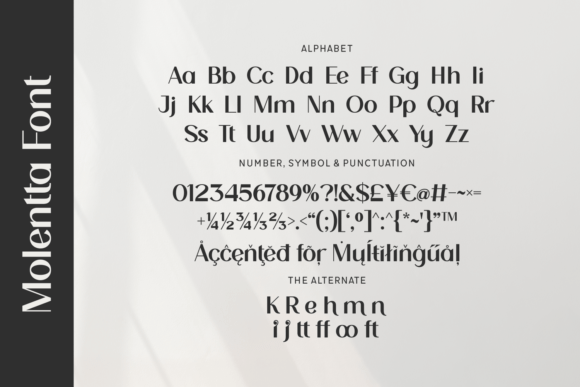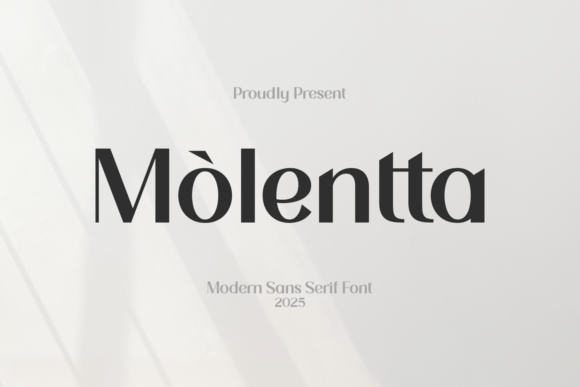
Introduction to Molentta Font
A promotional image for β€œMΓ²lentta,” a modern sans serif font from the year 2025.
The font is characterized by its sophisticated, high-contrast strokes, blending minimalist design with a touch of classic elegance, making it suitable for high-end branding and editorial use .